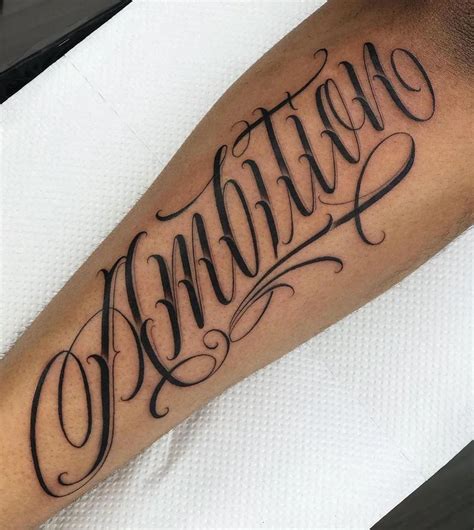
Letter Fonts Tattoos, Readability is extremely high with this font. The most interesting part about letter tattoos is the font.
Pick a font from the list below then enter your text in the box e.g. Apart from these arabic letters tattoo, japanese letters tattoo, hindi letters tattoo, sanskrit letter tattoos, etc. 13 faith in cursive font images script tattoo bubble letter for the word peace and newdesignfile com. It is quite an elegant and girly design which the wearer has.
Lettering styles include tribal, traditional sailor, blackletter, fancy, cursive, script, etc. Canvas acrylic megafamilyby yellow design studio. Fortunately, we have many unique tattoo font styles for men and women, such as calligraphy, cursive, and traditional styles. These ten examples of the various tattoo fonts for men should give you some ideas for great written tattoos. The elbow or places near.
Lettering styles include tribal, traditional sailor, blackletter, fancy, cursive, script, etc. 1 font style from $10.00. Script style tattoo fonts feature much wider and longer curves while display tattoo fonts have more stylistic serifs. The most interesting part about letter tattoos is the font. 75+ classy calligraphy tattoo designs & ideas;
The elbow or places near it are also considered unusual placement areas. Tattoo letter cursive idea font alphabet angle text monochrome png pngwing. Sant’elia scriptby yellow design studio. Find and download the right font for your next tattoo. One of the most common design styles in the tattoo industry is text.
Sant’elia scriptby yellow design studio. Script style tattoo fonts feature much wider and longer curves while display tattoo fonts have more stylistic serifs. These ten examples of the various tattoo fonts for men should give you some ideas for great written tattoos. Since tattoo fonts are rarely used to design body and paragraph text, the most common types of tattoo.